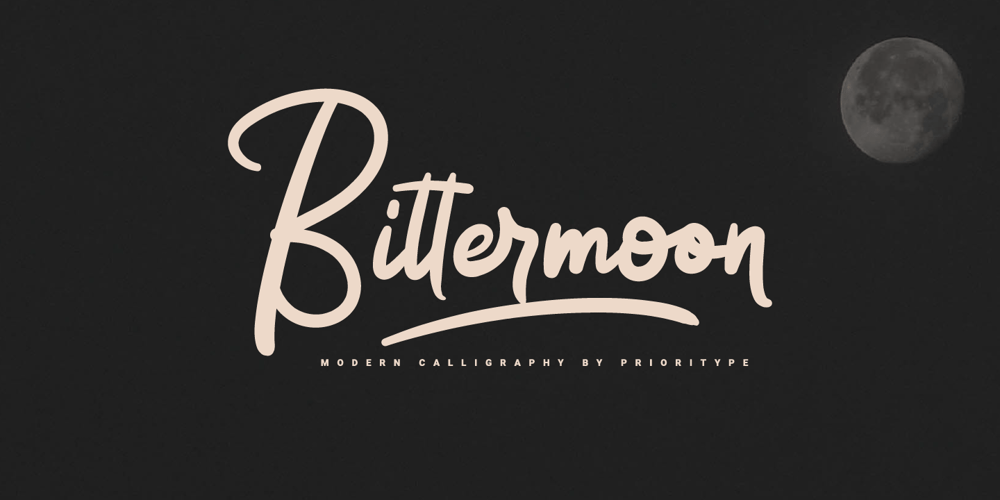
Bittermoon
Bittermoon font
Bittermoon Font Family was designed by Prio Nurokhim Aji and published by Prioritype. Bittermoon contains 1 styles and family package options. Modern script font with an elegant and captivating concept. You can use it in designs such as logos, photographer watermarks, business cards, creative posts, branding, business, wedding invitations, crafts and many more because they have interesting features and characters. See some of the previews above for reference.Features:-Uppercase-Lowercase-Numeral-Punctuation-Multilingual-Ligature-Alternate-SwashNote : Open with a program that supports the Opentype feature and an glyphs panel is available to see more alternative characters. Sample programs like Adobe Illustrator and the like!